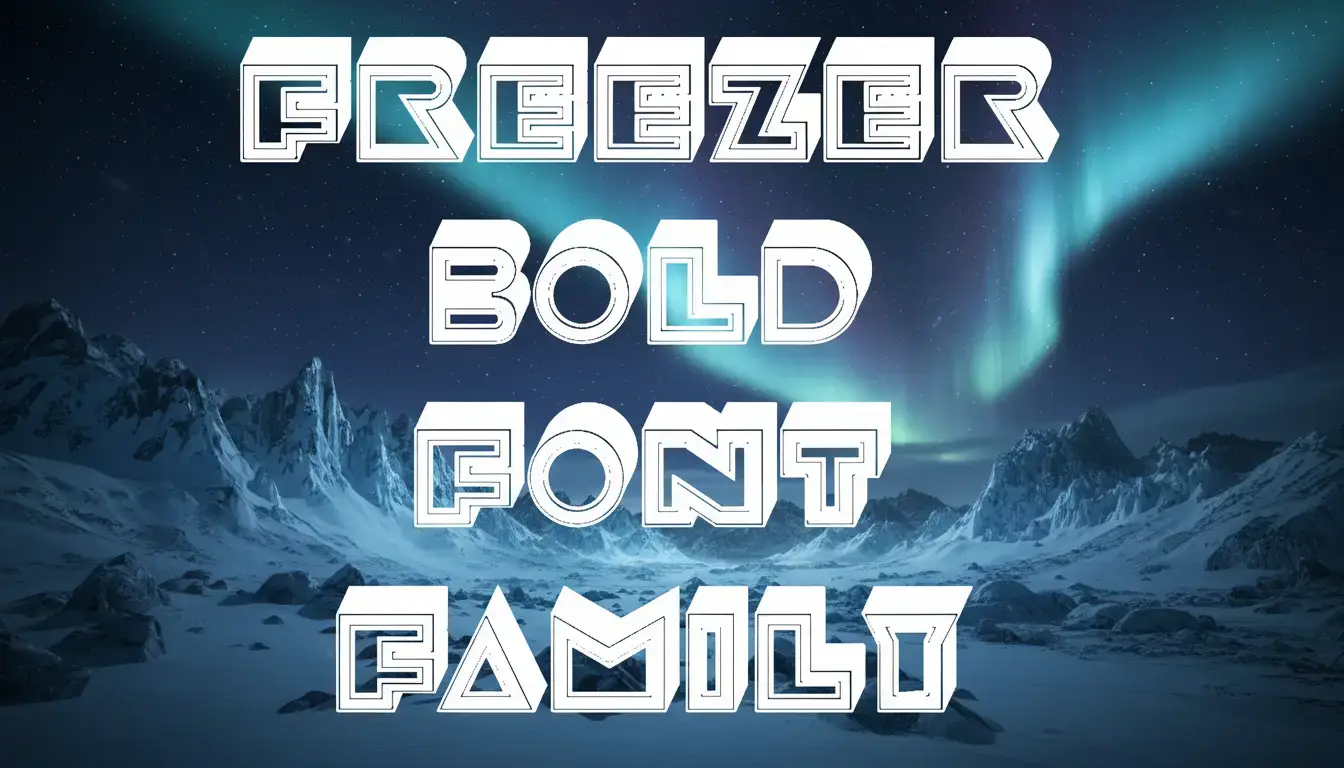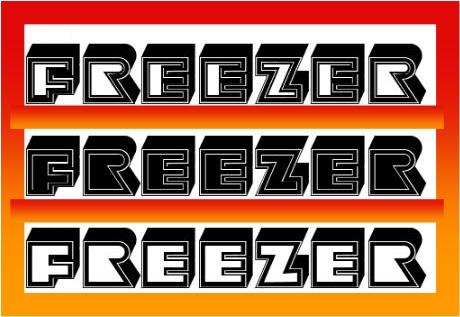
Freezer Bold Font Family
Freezer Bold Font Family is a fancy font created by Vladimir Nikolic. Bold and full of character, it's built to stand out rather than blend in. You can download it for free and test it with your own words in the preview above.
Freezer Bold Font Family has the full alphabet in upper and lowercase. There are no numbers, so you'll need a second font for dates, prices or phone numbers. Punctuation is limited, so look at the character map if you need a specific symbol. There are no accented letters like é or ñ, so it's best kept to English text.
Designers usually reach for fonts like Freezer Bold Font Family when they're making posters, logos and eye-catching headlines. Use it for one standout word or headline and let simpler fonts handle the rest.
No. Freezer Bold Font Family has no accented letters such as é, ñ or ü, so it's best for English text.